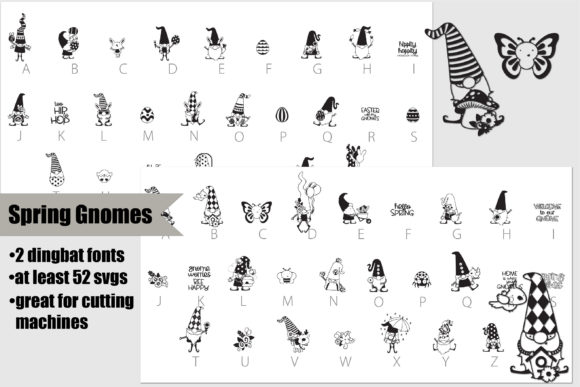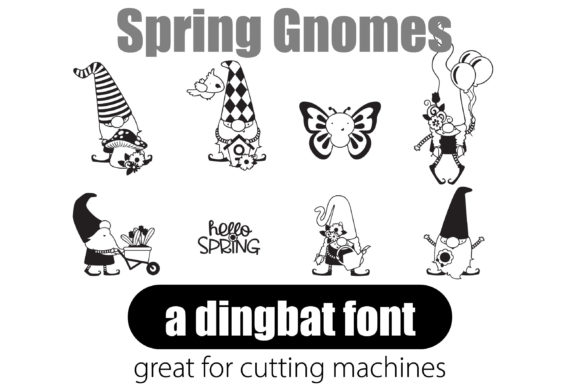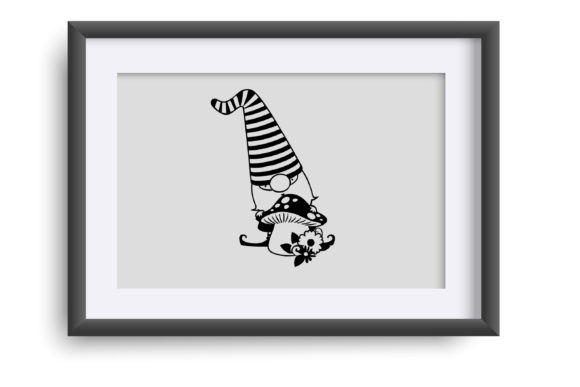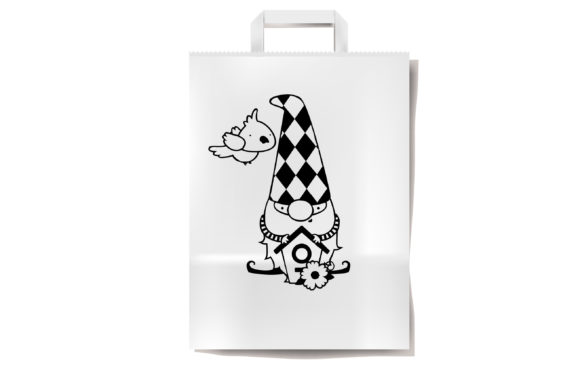
About Spring and Easter Gnomes Font
The Spring Gnomes & Easter Gnomes Dingbats bundle offers you a delightful collection of two dingbat fonts, each with its unique charm and purpose. Let’s explore these fonts in detail:
1. Spring Gnomes Dingbat:
This dingbat font features adorable spring-themed gnomes along with other spring-inspired elements. These whimsical characters are depicted in various poses and activities, bringing a sense of joy and playfulness to your designs. From gardening gnomes to gnomes enjoying outdoor activities, this font captures the essence of spring. It is perfect for adding a touch of whimsy and enchantment to your projects, such as greeting cards, invitations, scrapbooking, and more.
2. Easter Gnomes Dingbat:
The second dingbat font in the bundle showcases charming gnomes in Easter-themed settings and activities. These gnomes are depicted with Easter eggs, baskets, and other Easter-related elements, adding a festive and joyful touch to your designs. Whether you’re creating Easter cards, decorations, or personalized gifts, this font will infuse your projects with the spirit of the holiday. The designs are specifically optimized for use with vinyl and cutting machines, allowing you to easily create stunning Easter-inspired crafts with precision and ease.
Both fonts in this bundle offer their distinct advantages and can be used separately or in combination to suit your creative needs. Whether you’re captivated by the whimsical nature of spring gnomes or drawn to the festive charm of Easter gnomes, you have the tools to bring your projects to life.
With the Spring Gnomes & Easter Gnomes Dingbats bundle, you can unleash your creativity and infuse your vinyl and cutting machine projects with the magic of gnomes and the joy of spring and Easter. Let these adorable dingbat fonts add a touch of whimsy, warmth, and celebration to your designs!